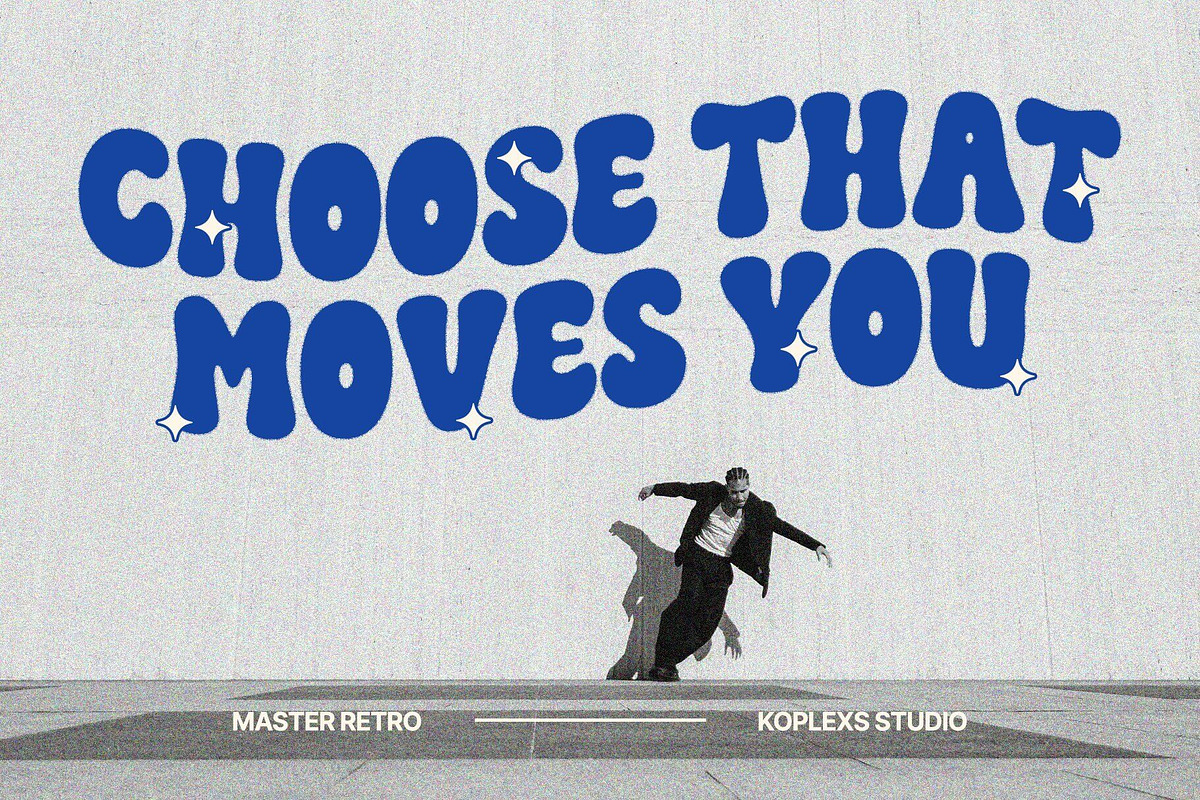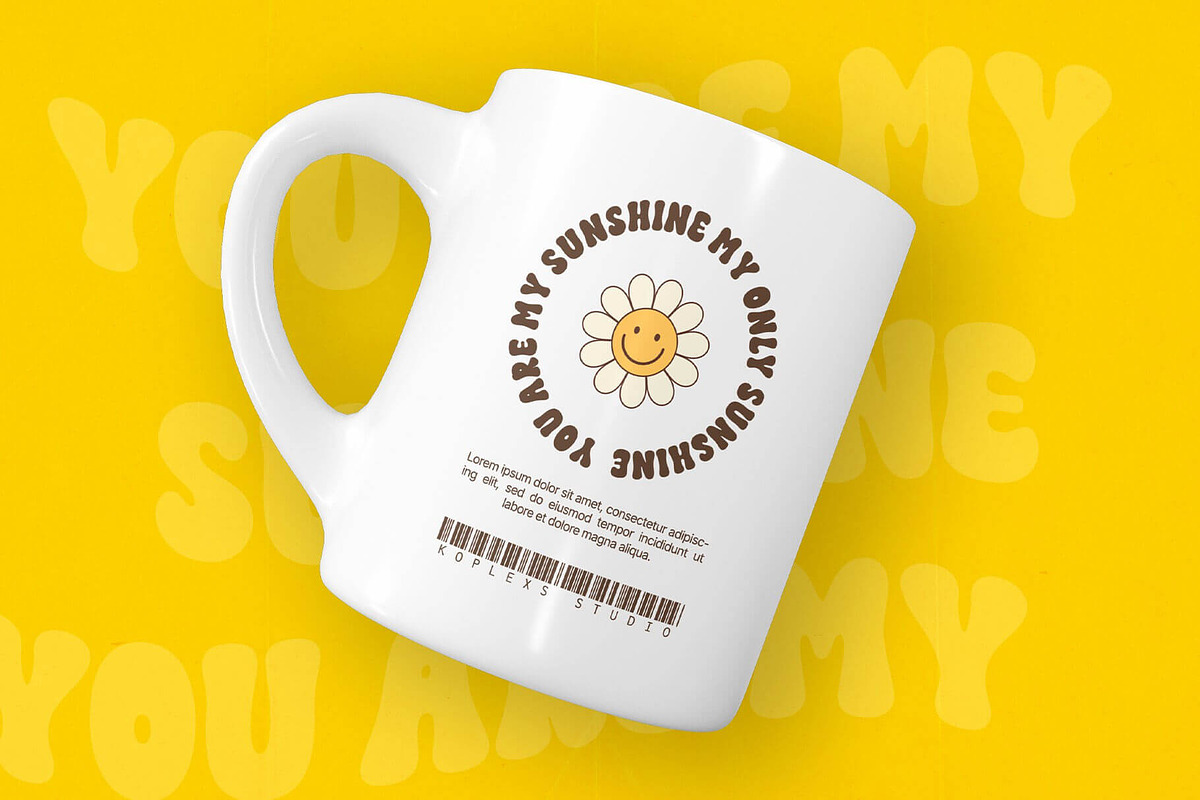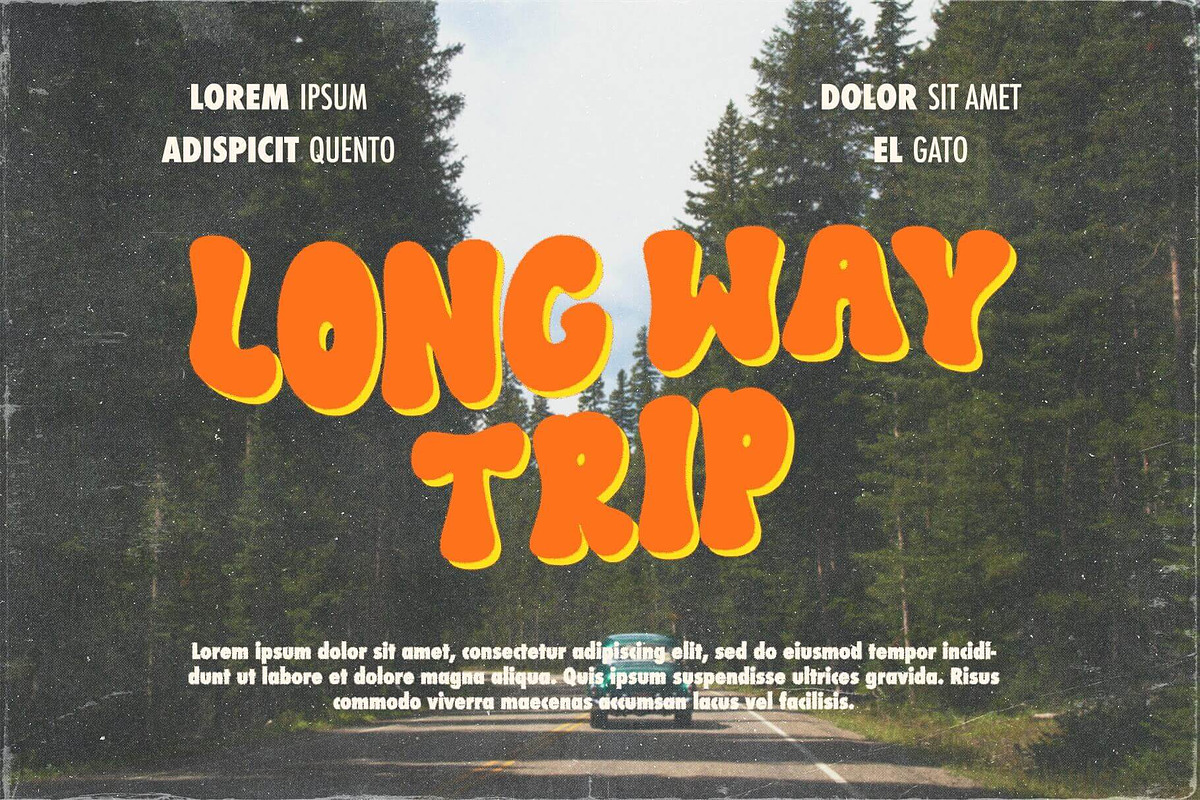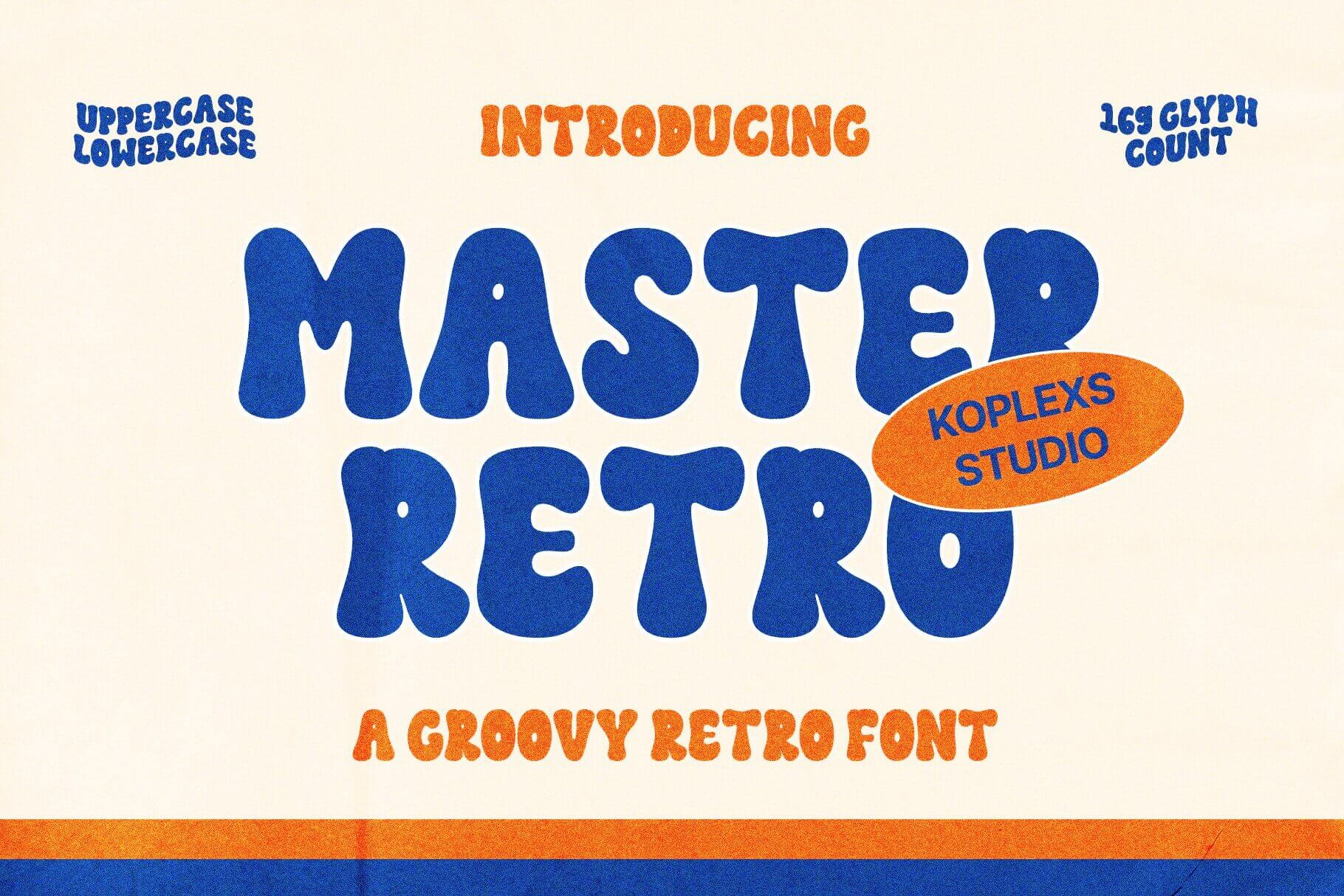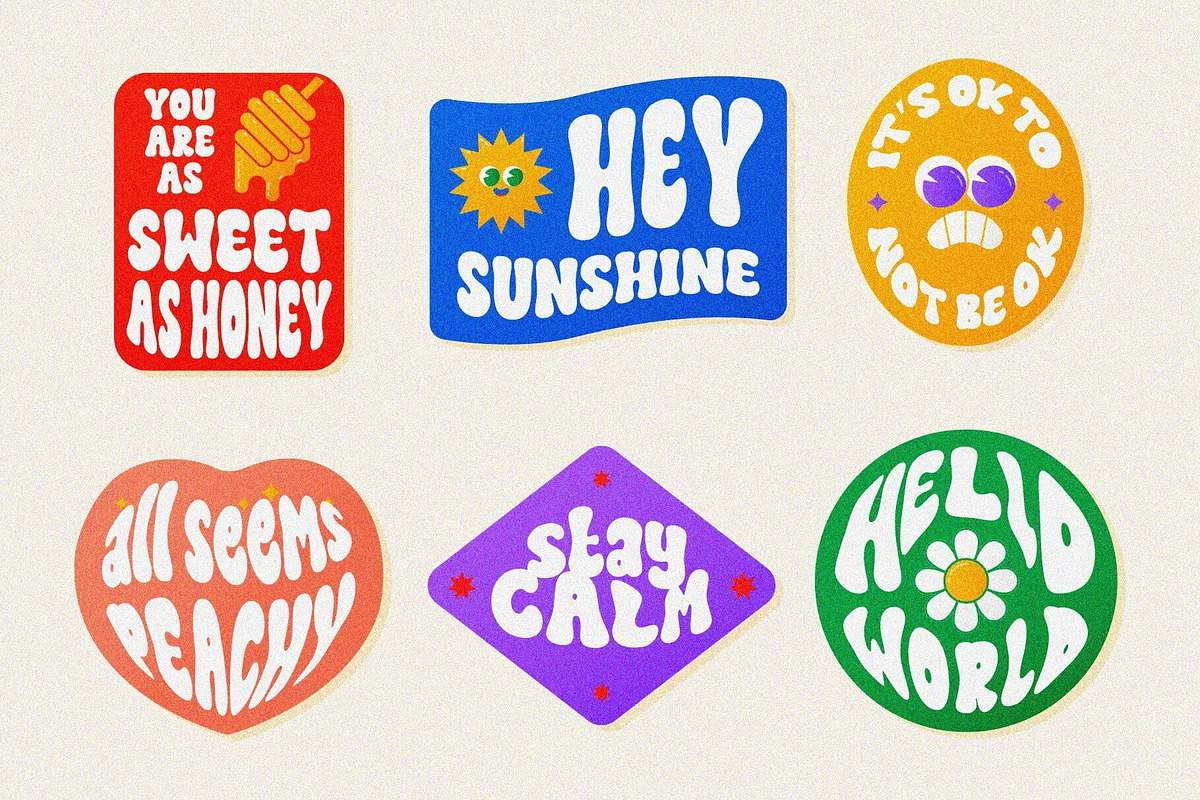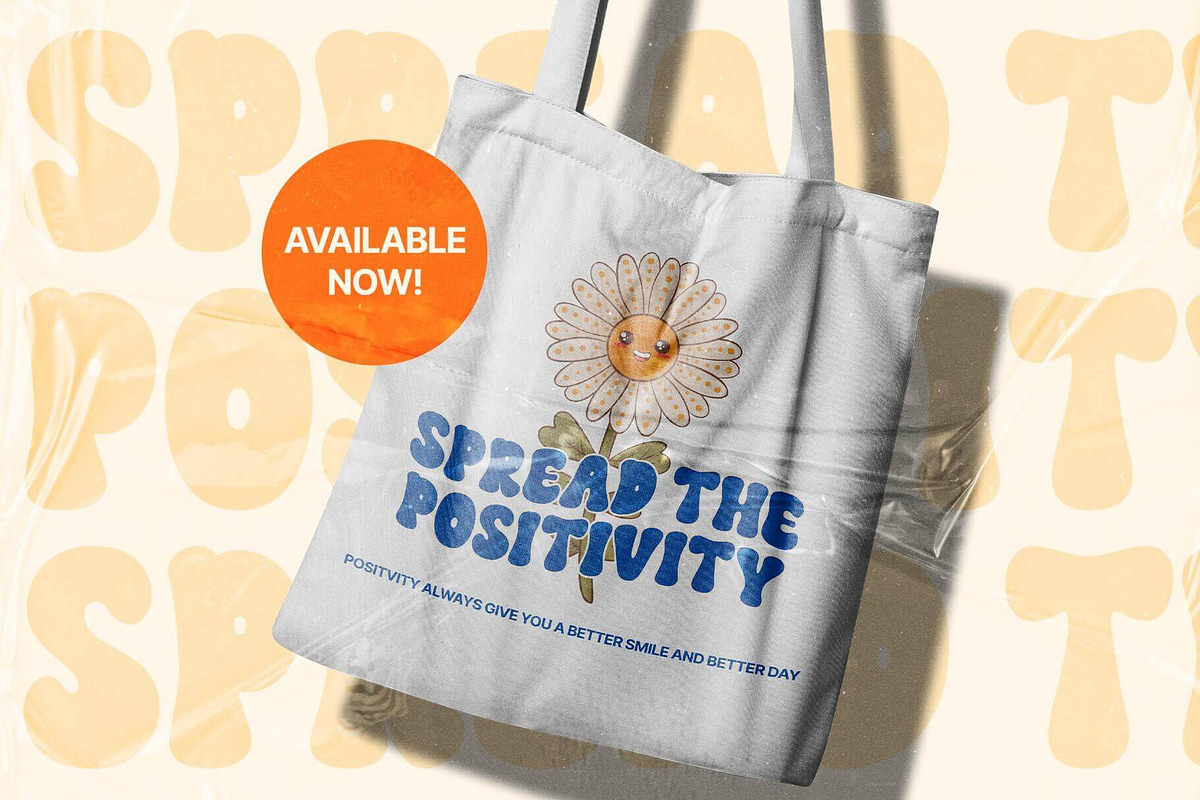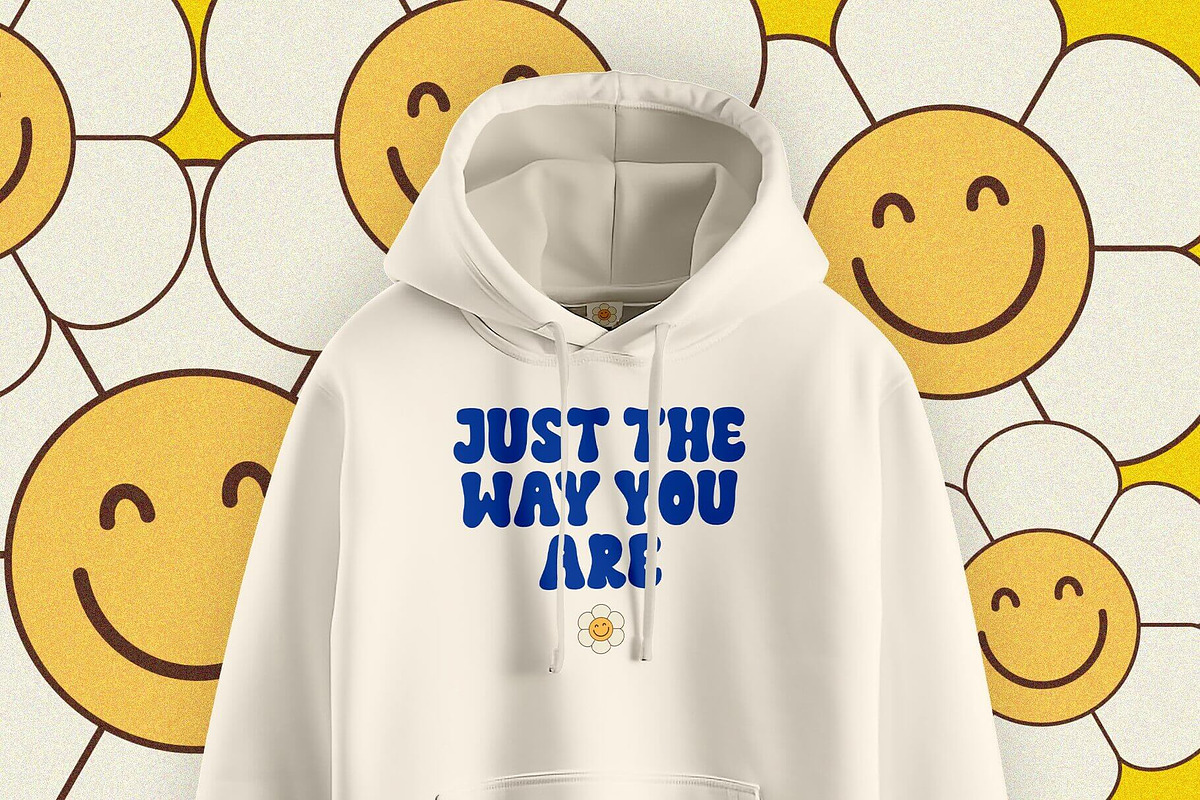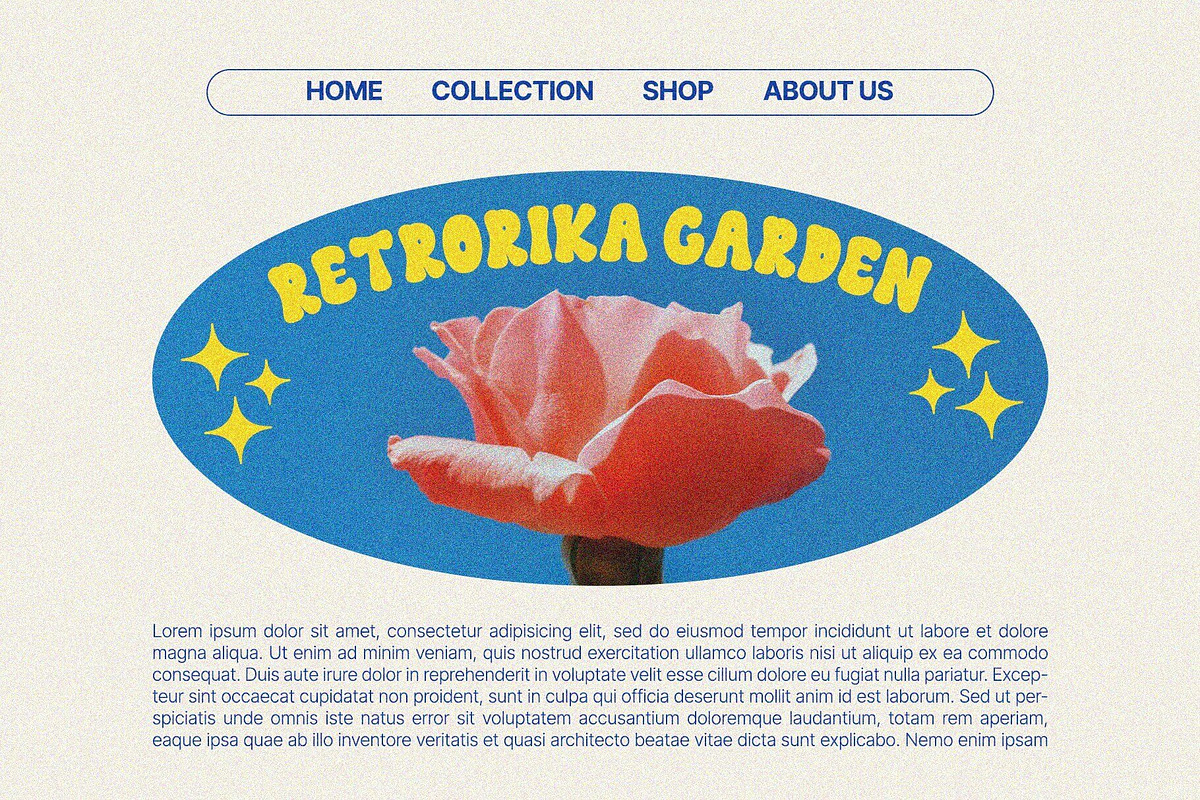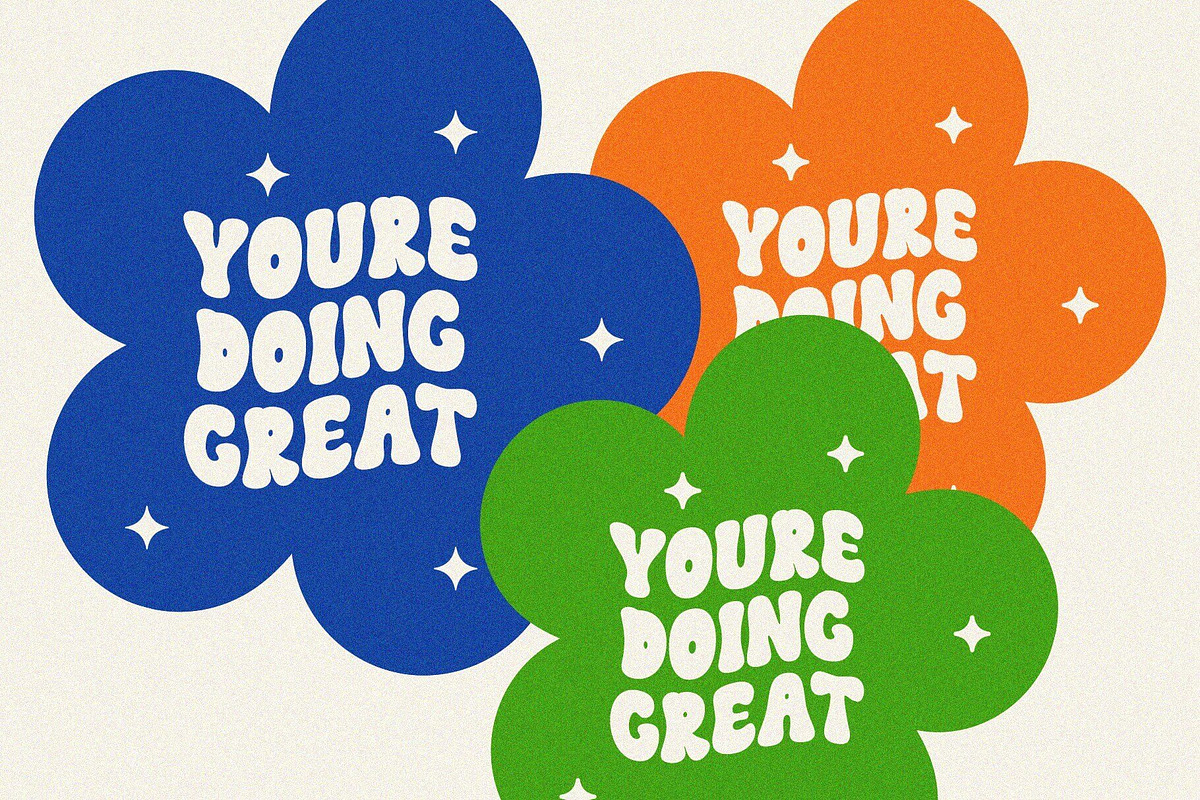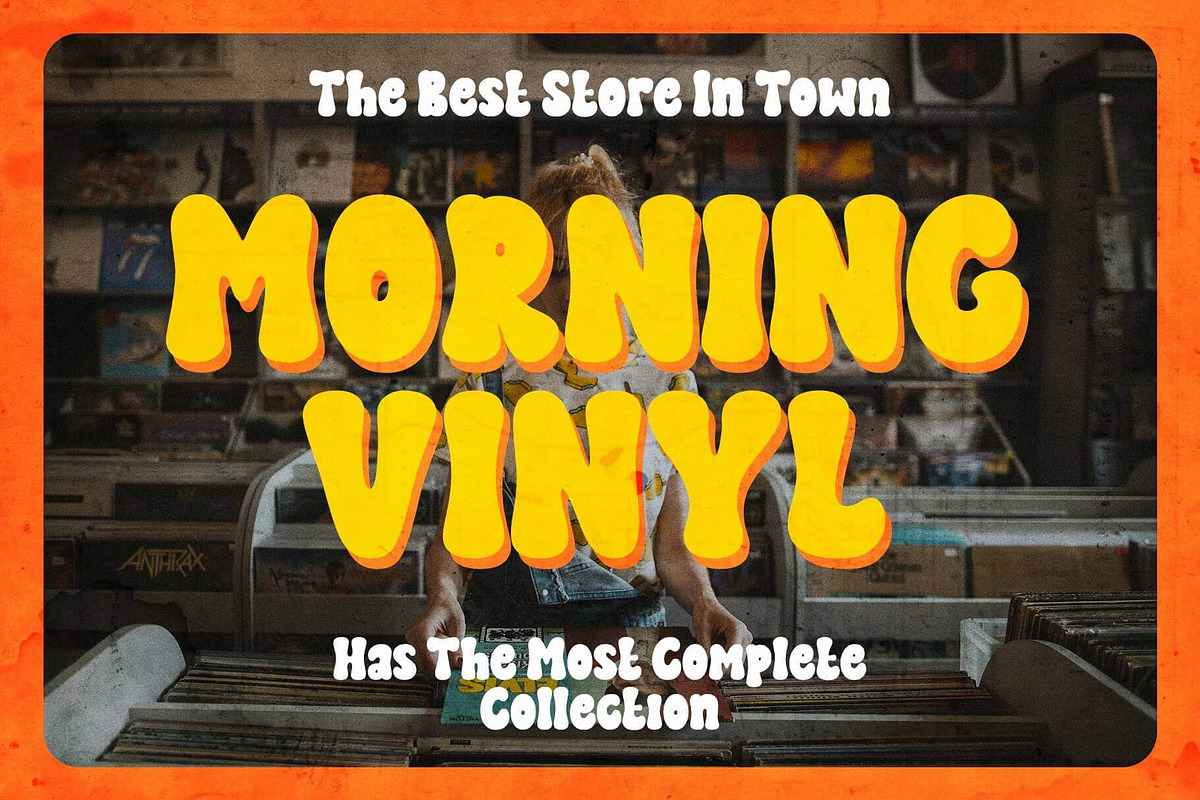
Master Retro Font
Master Retro Font - Groovy Retro Font
Master Retro Font - Groovy Retro Font is a vibrant and nostalgic font that will transport you to the cheerful and carefree atmosphere of the 70s. This font embodies the essence of retro design with its bold and playful letterforms, reminiscent of disco parties and funky vibes. With its unique and eye-catching style.
Master Retro Font is Very suitable for logotype, Stickers, Packaging design, Cricut Project, headlines, brand identity, t shirt or apparel industry, posters, magazines, books, YouTube, Instagram, websites, or any of your creative design projects.